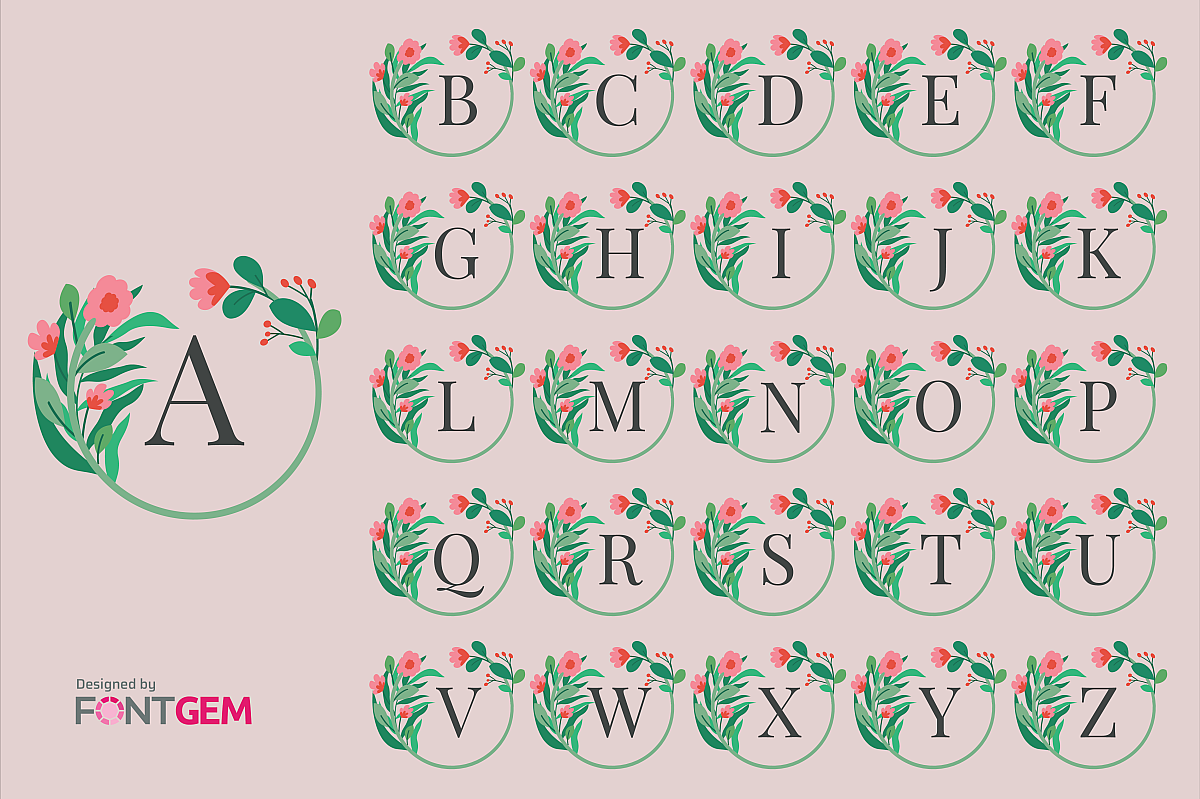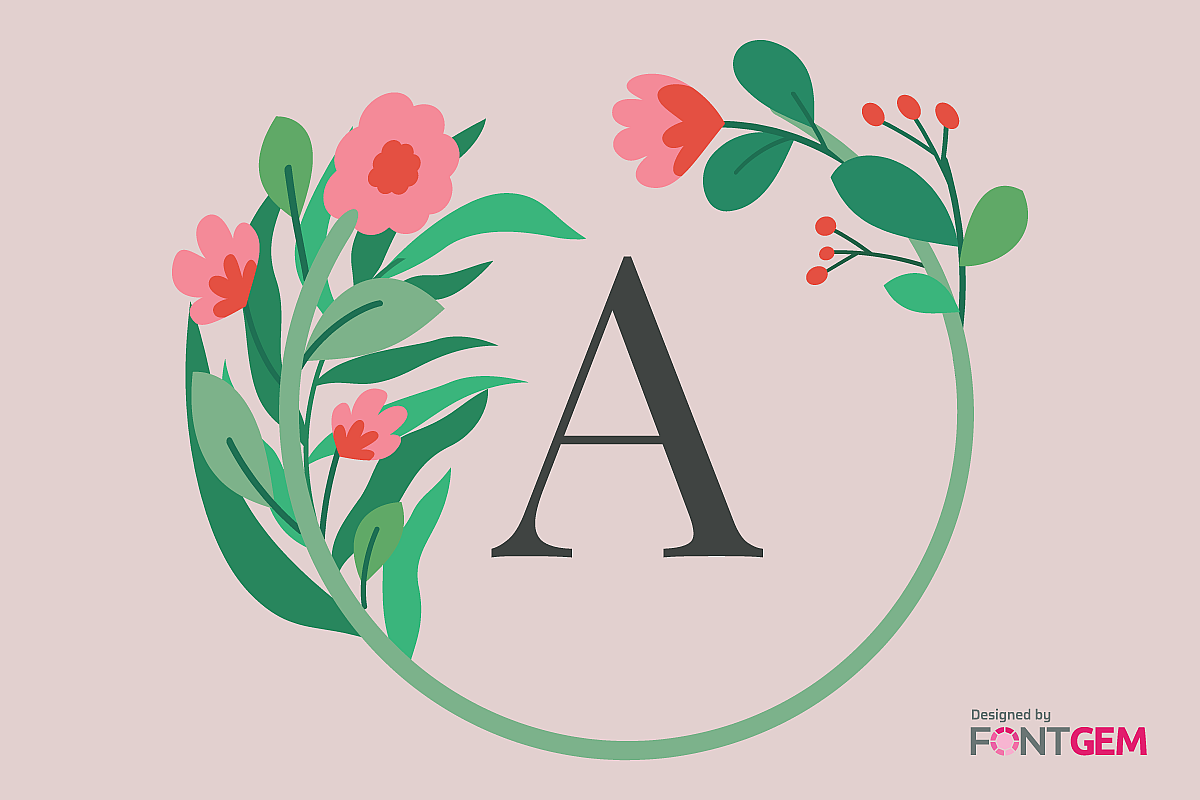
Free Botanical Monogram Alphabet – Elegant Letter Set
This Floral Alphabet Monogram Set includes all 26 letters (A–Z), each carefully designed with delicate botanical elements and soft floral accents. The timeless circular wreath style combines elegance and nature-inspired charm, making it ideal for a wide range of creative and professional uses.
Whether you’re designing wedding invitations, logo branding, wall art, greeting cards, or personalized gifts, these floral monograms add a refined and romantic touch. Each letter is visually balanced and cohesive, allowing you to mix and match seamlessly across projects.
Perfect for designers, crafters, small businesses, and creatives looking to elevate their visual identity with a soft, elegant aesthetic.
Features
• Complete alphabet set (A–Z)
• Elegant floral and botanical wreath design
• Feminine, romantic, and modern style
• High-quality illustration
• Consistent layout across all letters
Style
Floral, Botanical, Elegant, Romantic, Minimal, Feminine